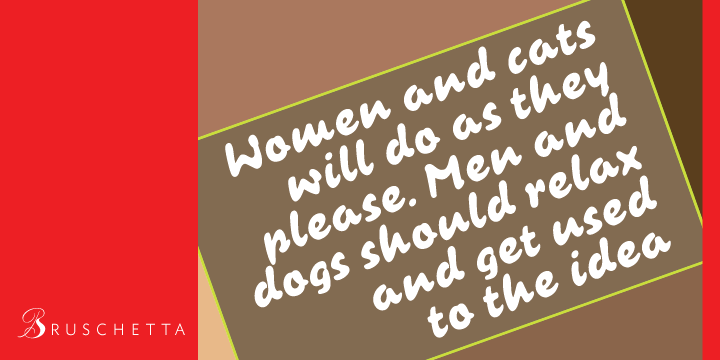
Bruschetta is a brush script font published by Canada Type.
The problem with scripts in general, and brush scripts in particular, is that the majority of them cannot be set in all-caps words or sentences. So as a rule of thumb most designers try to avoid brush scripts when they know they will be entering an all-cap zone.
But here comes Bruschetta, so you won